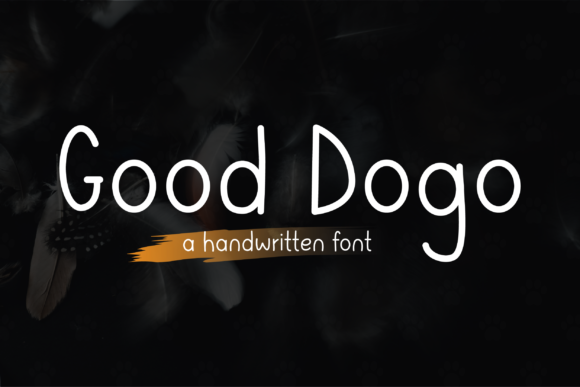
Unleashing Creativity with the Good Dogo Font
Who hasn’t felt that rush of inspiration when brainstorming ideas for a new design project? It’s that moment when everything clicks into place, and you envision the perfect combination of style and substance. For many designers, this spark often comes from discovering the perfect font to bring their vision to life.
One such font that has captured the hearts of many designers is the Good Dogo Font. This charming, handwritten font is specifically designed for adding a personal touch to chalkboard quotes and teaching materials. Its authentic look gives designs a realistic feel that’s hard to replicate with other fonts. With Good Dogo Font, designers can create unique and engaging visuals that capture their audience’s attention and leave a lasting impression.
Good Dogo Font Key Features
- Font Family: Good Dogo Font is a unique, handwritten font family that includes multiple styles, such as Regular, Italic, Bold, and Bold Italic.
- Character Count: With over 500 characters, including uppercase and lowercase letters, numbers, and punctuation marks, this font offers extensive character support.
- Unique Characteristics: The font’s handwritten style and subtle imperfections give it a natural, hand-crafted feel, making it perfect for creative and artistic projects.
Designer Review: Good Dogo Font
I recently had the chance to play around with the Good Dogo Font, and I’m here to share my honest thoughts on it.
- Unique Character: The Good Dogo Font has a distinctive character that stands out from other sans-serif fonts. Its quirky, hand-drawn feel adds a touch of personality to any design.
- Legibility: Despite its unconventional design, the font remains surprisingly legible, making it suitable for a wide range of applications.
- Fun for Creatives: The Good Dogo Font is perfect for designers who want to add a bit of whimsy to their projects. Its playful nature makes it an excellent choice for children’s books, advertising, and other creative endeavors.
- Limited Versatility: While the Good Dogo Font is great for certain projects, its unique character may not be suitable for more formal or professional applications.
- May Not Scale Well: The font’s irregularities can cause it to become distorted when scaled up or down, which may require additional design considerations.
Overall, I think the Good Dogo Font is a great addition to any designer’s toolkit. While it may have its limitations, its unique character and legibility make it a valuable resource for creatives looking to add some personality to their projects.
Tips for Getting the Most Out of Good Dogo Font
To get the most out of the Good Dogo Font, use it for:
- Emphasizing headlines and titles
- Creating a playful and casual tone
- Designing for children’s products or education